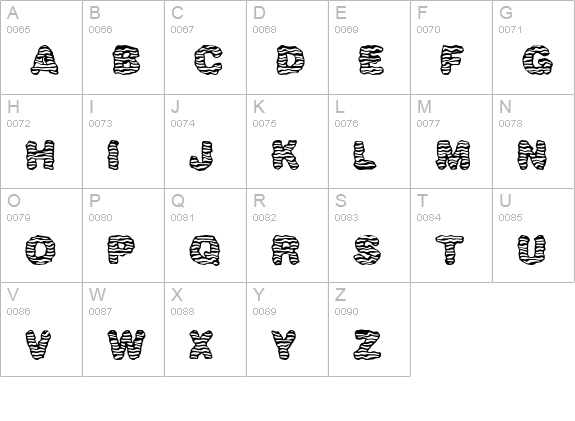
waver BRK Font Details
Waver BRK font is a unique and eye-catching typeface that adds a touch of creativity and whimsy to any design project. Its wavy lines and playful curves give it a modern and dynamic look, perfect for logos, branding, and other graphic design applications. The free Waver BRK font is freely available to download at FontsMarket.com, making it accessible to designers and creatives looking to add a fresh and distinctive element to their work. With its bold and vibrant style, Waver BRK font is sure to make a statement and leave a lasting impression on any audience.